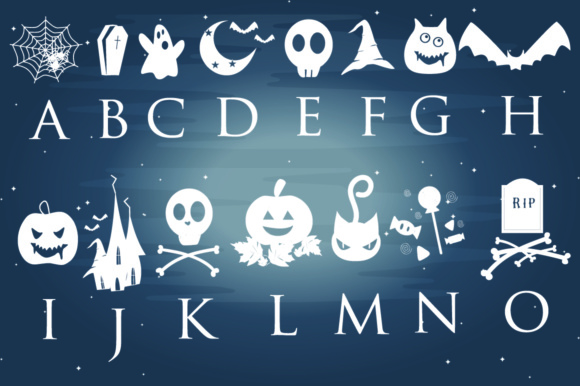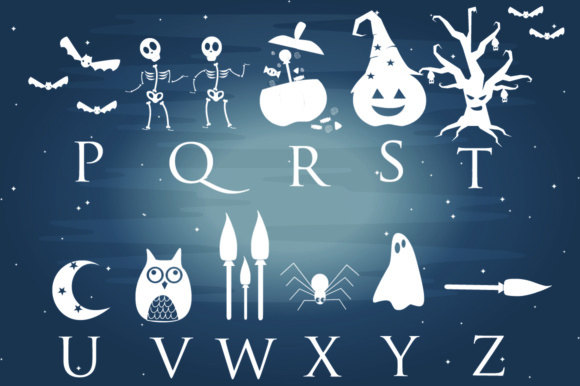
Introduction to Halloween Dingbats Font
Have you ever been working on a creative project, pouring your heart and soul into it, only to feel like something’s missing? Maybe you’re designing a Halloween-themed poster or a spooky website, but the design just needs that extra oomph. That’s where the Halloween Dingbats Font comes in – a high-quality, creative resource that adds an extra layer of depth to your design.
As a designer, you know the importance of having the right tools at your disposal. That’s why we’re excited to share this free download with you. The Halloween Dingbats Font is a treasure trove of spooky symbols, from haunted houses to scary cats, all with a transparent background for seamless integration into your designs.
With the Halloween Dingbats Font, you’ll be able to add a professional touch to your Halloween designs, making them stand out from the crowd. Whether you’re working on a personal project or a client’s design, this font is sure to be a valuable addition to your design resource library.
Key Features of Halloween Dingbats Font
- High-quality design suitable for a creative project, providing a unique touch to any Halloween-themed artwork.
- Comes with a transparent background, allowing for easy customization and integration with various design elements.
- Includes a variety of Halloween-themed dingbats, such as ghosts, bats, and jack-o’-lanterns, to add a spooky touch to your design.
- Perfect for designers looking for a unique and creative way to add a Halloween theme to their project, whether it’s a poster, flyer, or digital artwork.
Honest Review: Halloween Dingbats Font
As a designer, I’m always on the lookout for unique design resources to spice up my creative projects. The Halloween Dingbats Font is one such treasure that caught my attention.
- High-quality design: The font is well-crafted with intricate details and a transparent background, making it perfect for adding a spooky touch to your designs.
- Perfect for Halloween-themed projects: As the name suggests, this font is ideal for creating spooky and festive designs for Halloween.
- Limited usage: While the font is perfect for Halloween-themed projects, it might not be as versatile for other creative projects.
Overall, I’m impressed with the Halloween Dingbats Font. It’s a great addition to any designer’s toolkit, especially during the Halloween season. Just be aware of its limitations and use it responsibly.